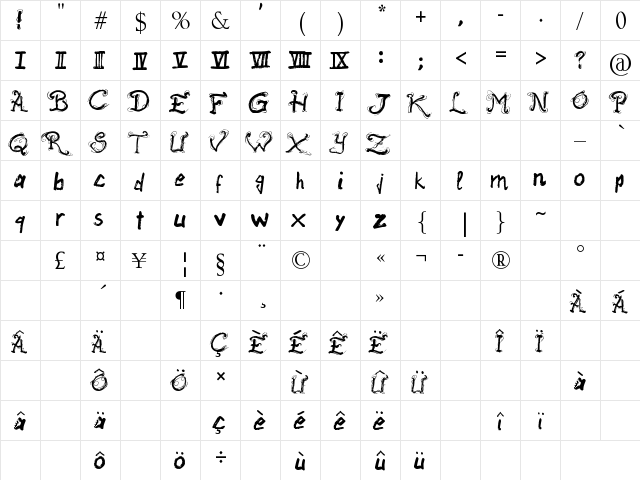
Raslani Ancient Script Regular
| Designer | Raslani |
Design Context for Raslani Ancient Script Typeface
Raslani Ancient Script brings a calligraphic fluidity to the page — its connecting strokes and expressive curves give it an unmistakably human quality.
Font Pairing: Combine Raslani Ancient Script with a simple geometric sans for maximum contrast — the tension between flowing curves and clean structure is a classic typographic pairing.
Pro Tip: Pair Raslani Ancient Script with a clean sans-serif for supporting text. The contrast between fluid script and geometric structure creates an elegant typographic hierarchy.